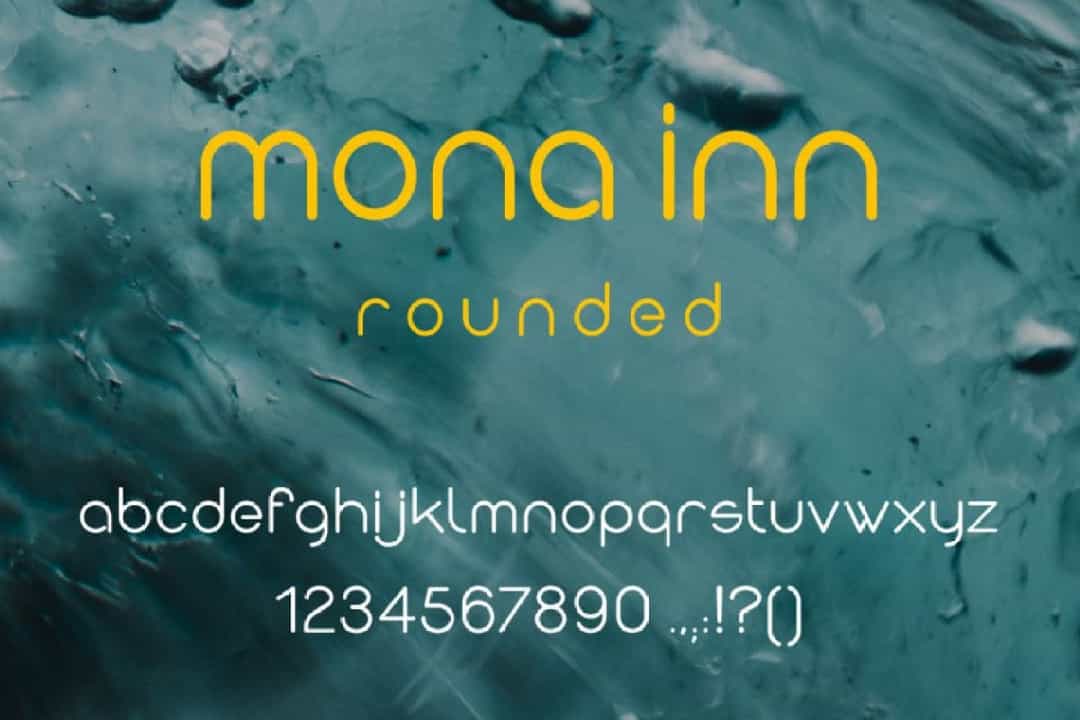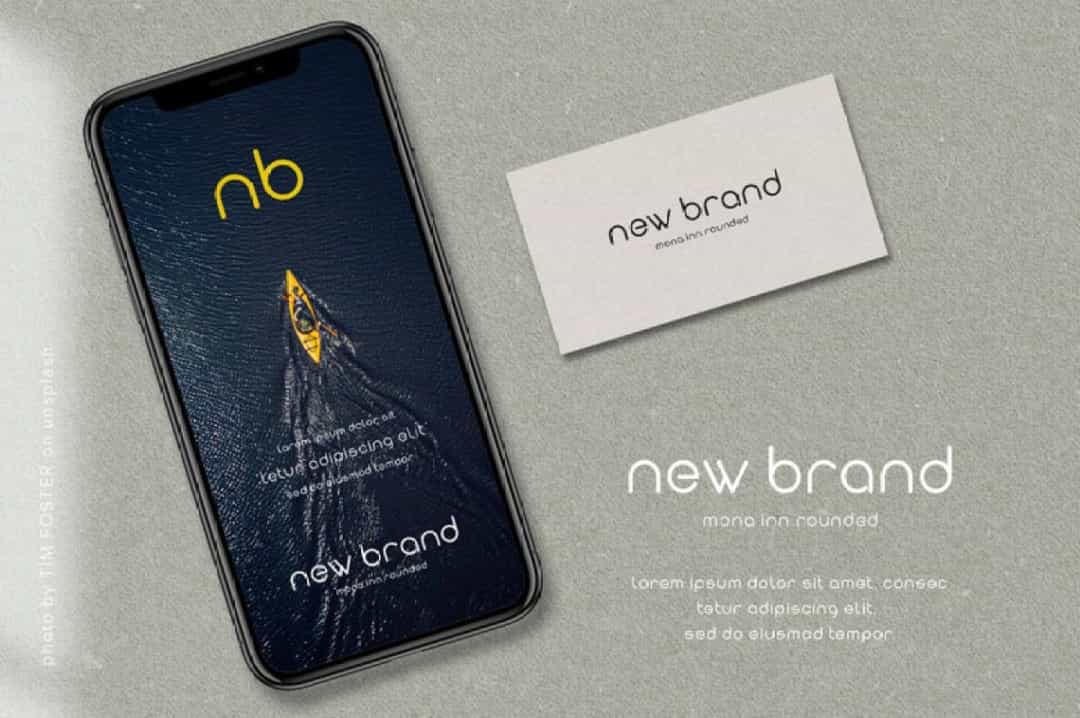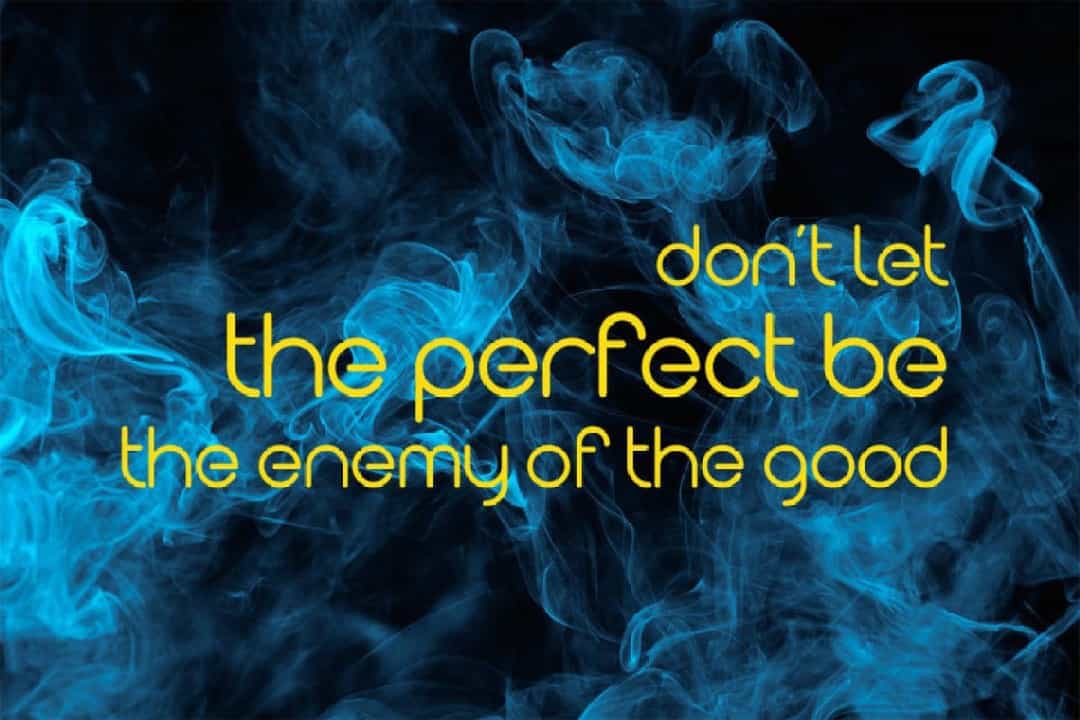
Mona Inn is an elegant yet minimal sans serif font designed to add value to graphic or logo designs. Mona Inn makes for the ideal font choice when embarking on any branding endeavor – be it T-shirt printing, logos or product innovation projects.